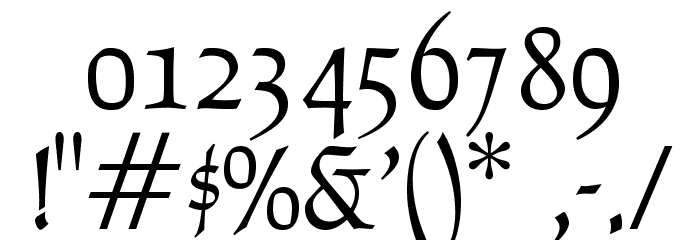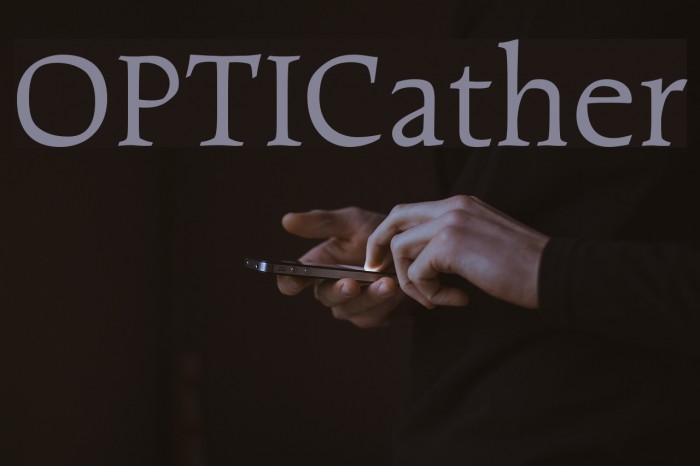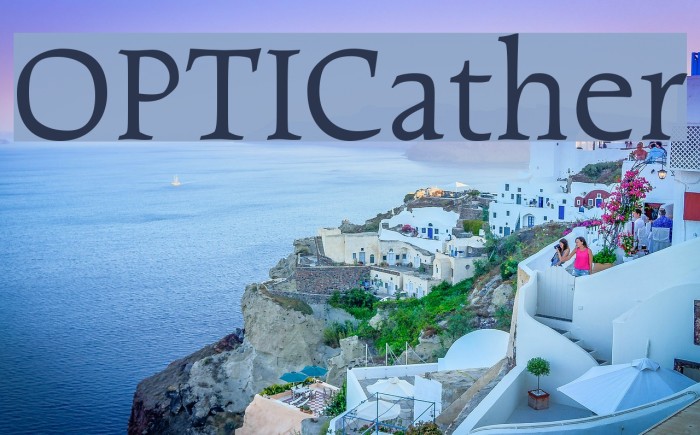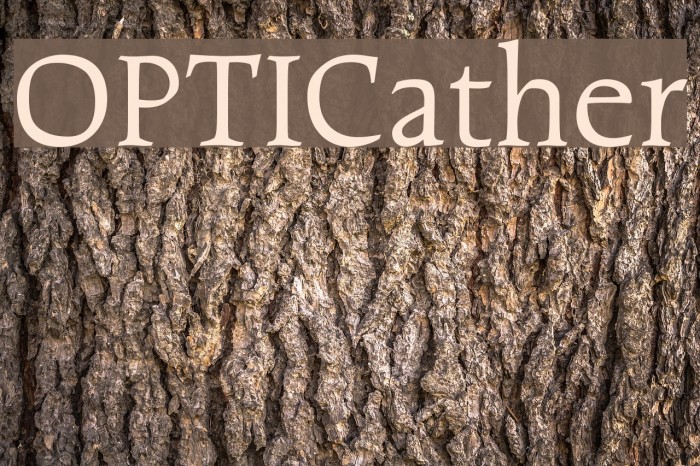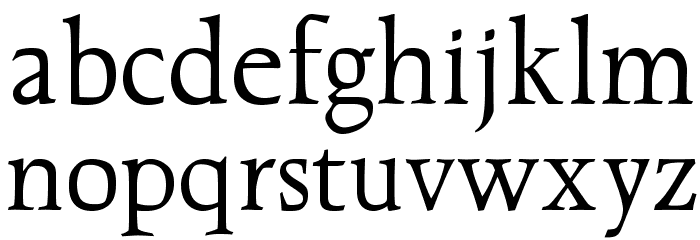
OPTICather Font
This font features a classic serif style with elegant and refined strokes. The uppercase letters are bold and commanding, while the lowercase letters maintain a graceful and flowing appearance. The numerals are distinct and well-proportioned, ensuring readability. Special characters are designed with a consistent style, adding to the overall harmony of the font. The serifs are pronounced, giving the typeface a traditional and authoritative feel, suitable for formal documents and sophisticated branding.
A classic serif font with elegant strokes and refined details.
• Proposed Projects: Ideal for book covers, formal invitations, branding for luxury products, and editorial design.
• Category: Serif
• Bold: No
• Italic: No
• Weight: Regular
• Width: Normal
• Character Spacing: Normal
• Contrast: Medium
• Overall Style: Classic
• Use Case: Headlines, Body text, Logos